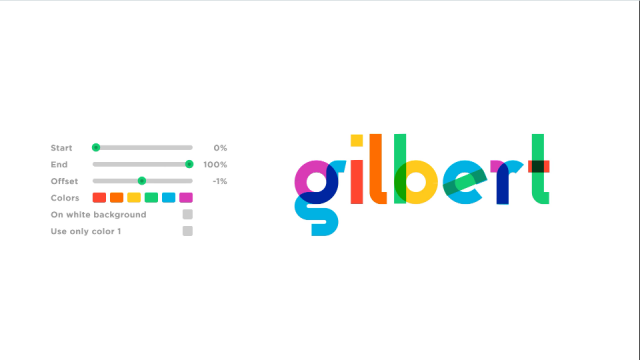
To honor the memory of Gilbert Baker, LGBTQ activist, and creator of the now iconic Rainbow Flag, NewFest and NYC Pride partnered with Fontself and Animography to create a free (and free-spirited) animated typeface.